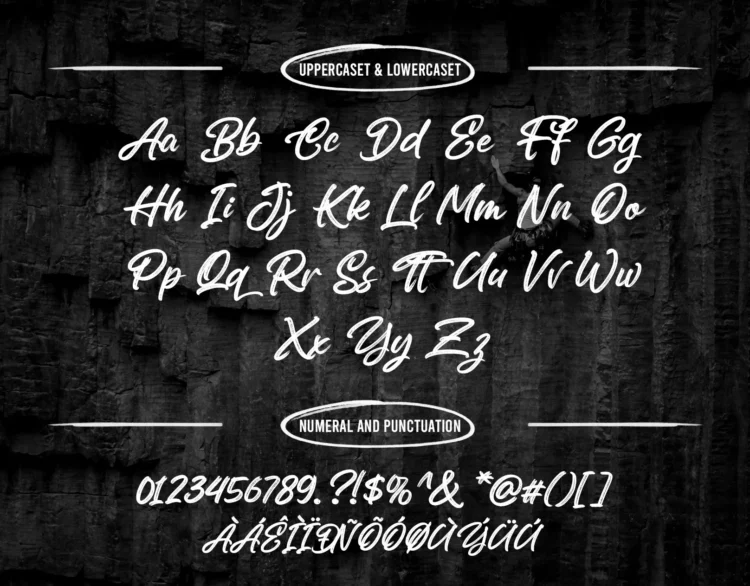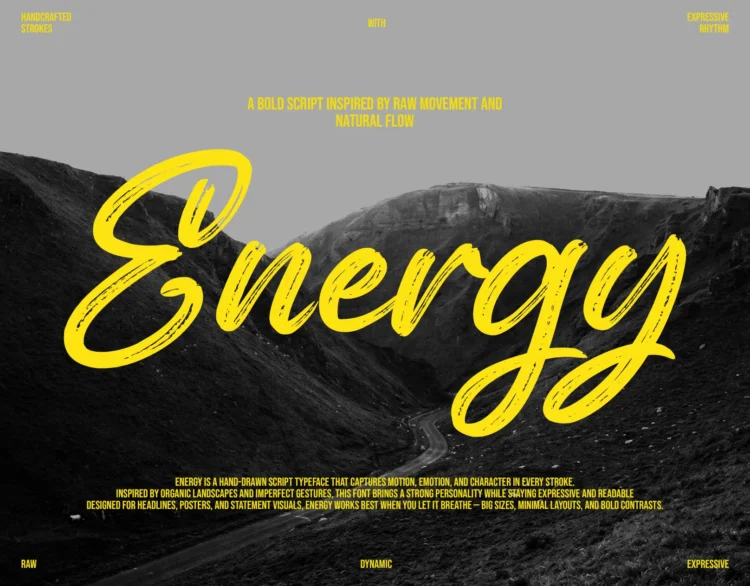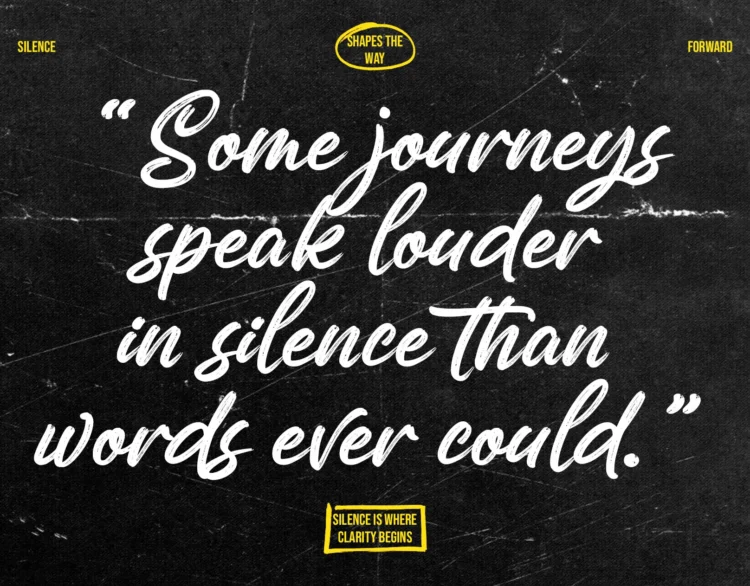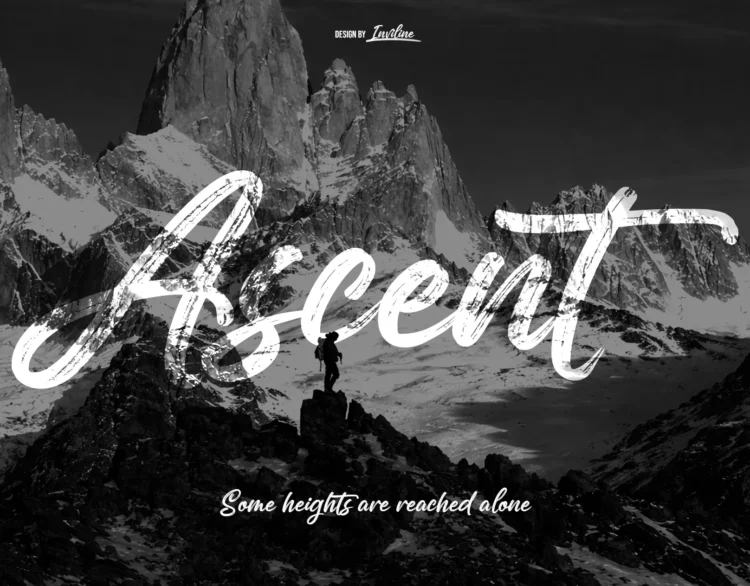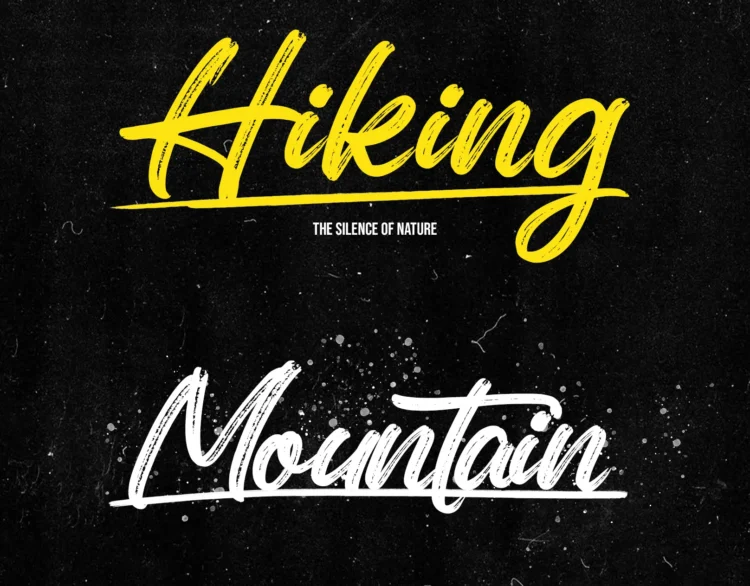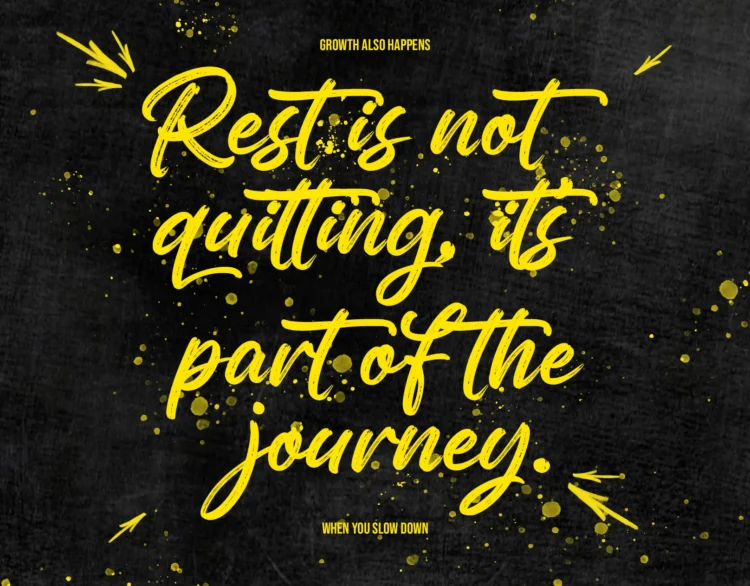
Coryante – Dry Brush Script Font
Coryante is a bold dry brush script font that brings intense energy and movement to your design. Every stroke is crafted with raw texture, giving your message an authentic, handcrafted feel. Perfect for headlines that want to scream, logos that want to stand out, or social posts that need a loud personality, this font is made to leave a mark.
Inspired by freedom, nature, and emotional depth, Coryante works beautifully across modern lifestyle brands, apparel graphics, bold editorial layouts, and poster designs. Whether you’re designing for adventurous spirits or soulful brands, this brush script helps you speak with impact.
Perfect For :
- Branding & logo design
- Outdoor or adventure posters
- Motivational quote graphics
- Apparel & merchandise
- YouTube covers & thumbnails
- Brush-style editorial layout